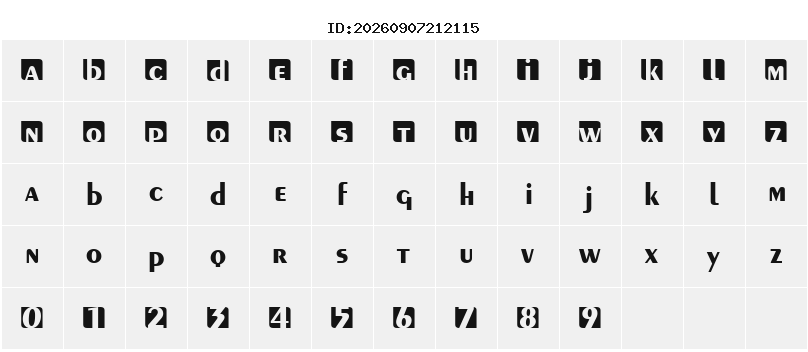
URWPelionIniDBol.ttf is a modern, elegant sans-serif font designed for ultimate readability and visual harmony. Perfect for branding, headlines, web design, and print materials.